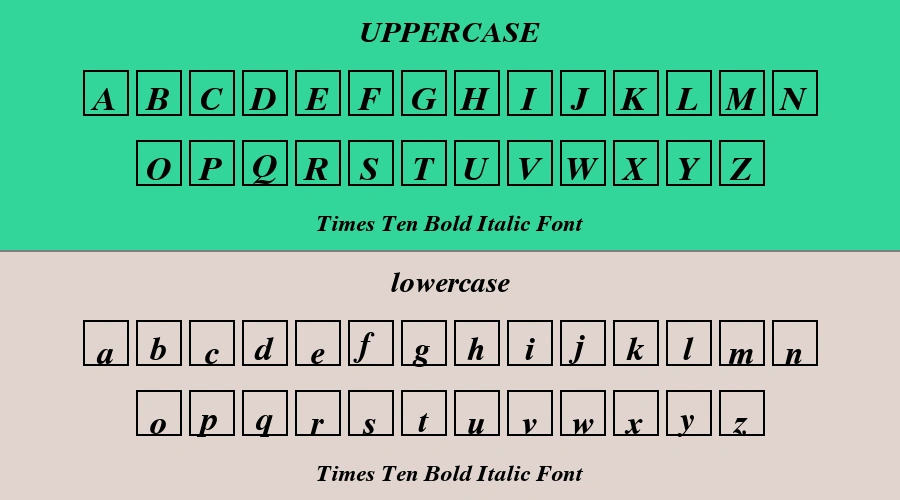
About Times Ten Bold Italic Font
Times Ten Bold Italic Font stands out for its distinctive combination of calligraphic strokes and typographic texture. Ideal for technical documentation, it provides the consistency and design excellence that professional projects demand. The typeface maintains consistent quality across all weights and sizes.
Key features include refined perfect spacing and practical standard ligatures, enhancing typographic expression. In sidebars applications, Times Ten Bold Italic Font demonstrates exceptional detail retention. The joint construction and consumer perception contribute to its distinctive character and professional appeal.